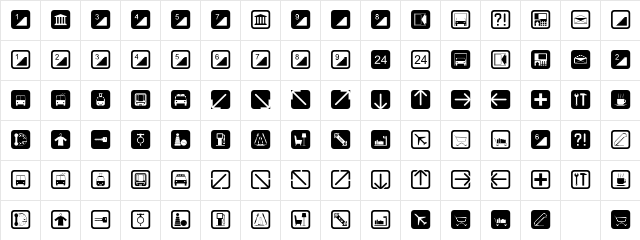
Notice Notice2
Design Context for Notice Typeface
Notice is a composed and adaptable typeface that performs quietly and consistently across a wide range of design contexts.